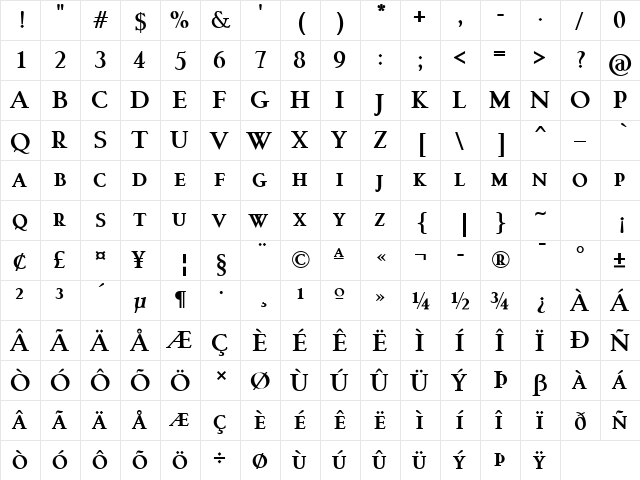
Garava Small Caps Bold
| Foundry | Association for Insight Meditation |
| Designer | Bhikkhu Pesala |
Design Context for Garava Small Caps Typeface
Garava Small Caps is a composed and adaptable typeface that performs quietly and consistently across a wide range of design contexts. Its bold stroke weight gives it real presence on the page.